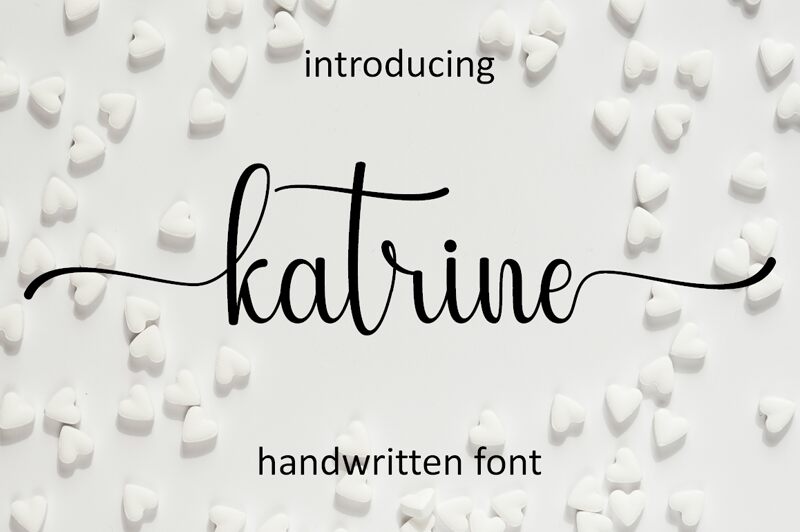
Katrine
Katrine, crafted by Hardiboy Design, exudes a personal touch with its handwritten style, capturing the warmth and authenticity of human penmanship. Its gentle strokes hint at a light touch, giving the font a delicate and approachable demeanor. With an elegant flow that mimics the nuances of calligraphy, Katrine brings an organic personality to any text it graces.
This font's aesthetic appeal lies in its ability to convey intimacy and individuality, making it ideal for invitations, branding for boutique businesses, or any project seeking to embody a sense of craftsmanship and personal connection. Katrine stands out in contexts that require a blend of sophistication and the heartfelt charm of a handwritten note.